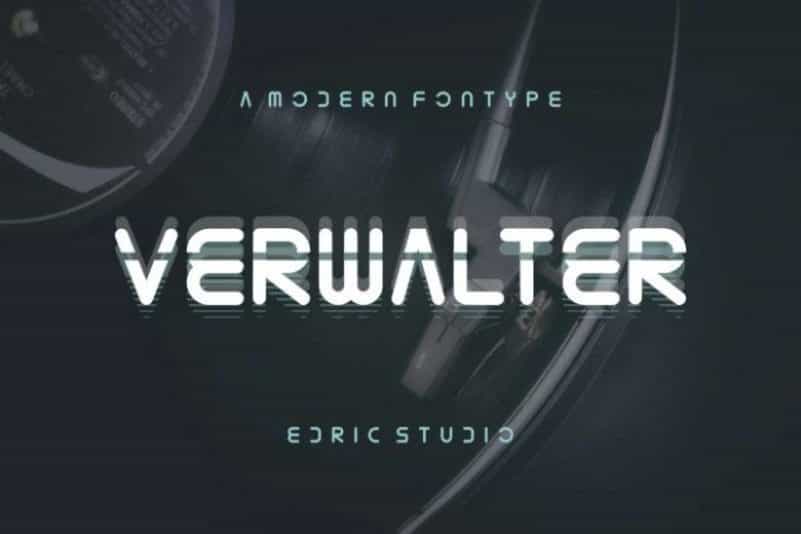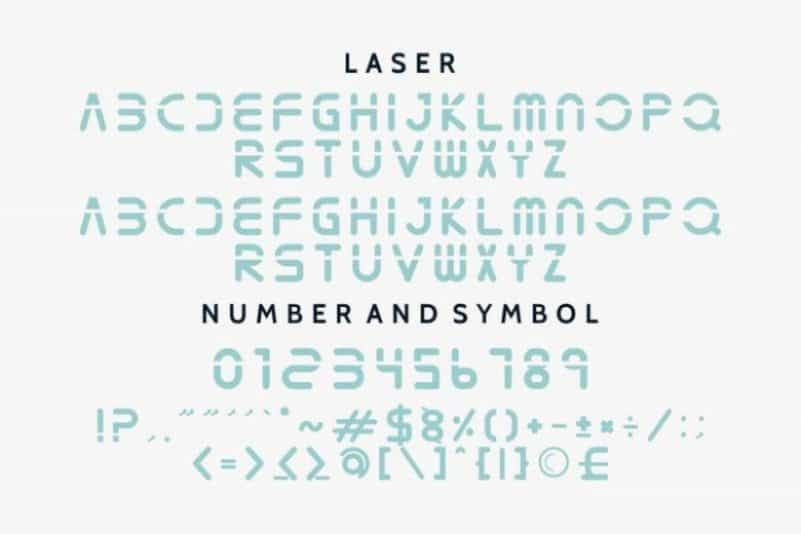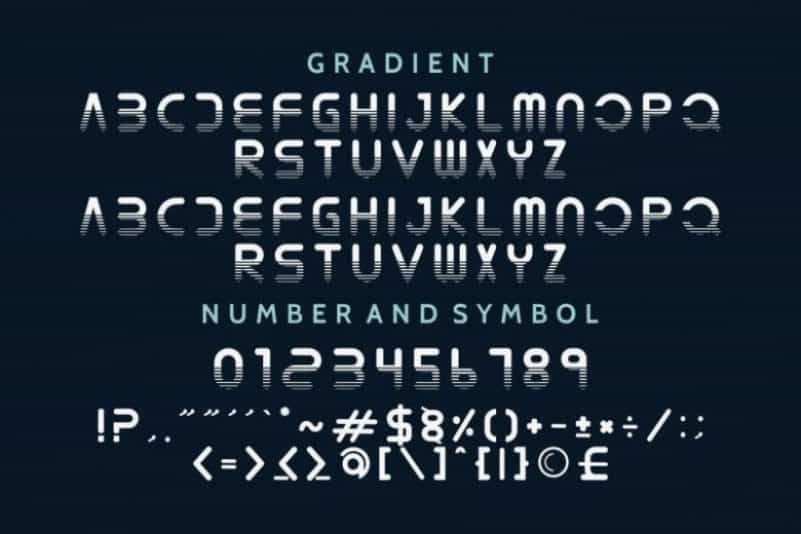
Verwalter font is a type of display decorative futuristic techno modern. It contains three styles : Modern, Monospaced Laser, and Gradient 3D typeface. It also support multilanguage characters. Best for branding, logo, stationjsonlyery, business card, signage, flyer.